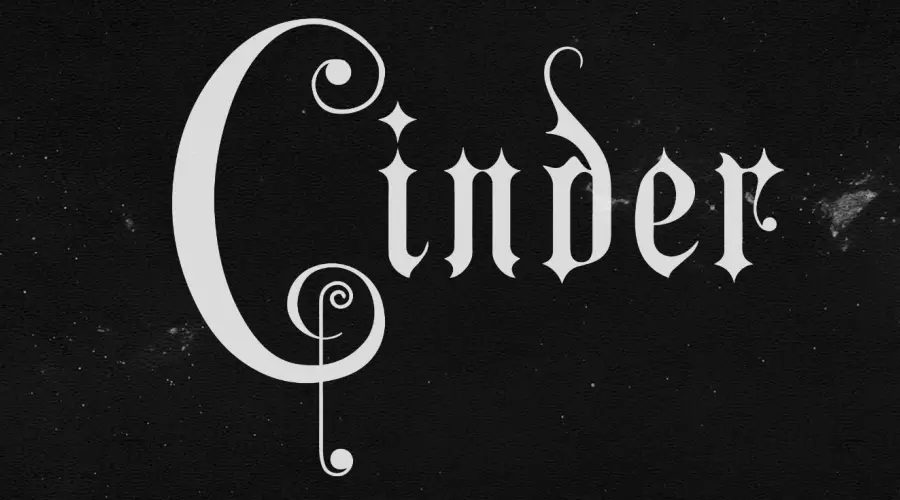
The Cinder Font is a distinctive typeface prominently featured on the cover of Cinder, the first book in Marissa Meyer’s Lunar Chronicles series. This science fiction novel reimagines the classic Cinderella tale in a futuristic world where humans and cyborgs coexist. The font used for the title on the book cover is Aeronaut, a neogothic typeface designed by Georg Herold-Wildfellner in 2009. Its sharp, futuristic, and slightly industrial design perfectly complements the novel’s theme.
Aeronaut by Georg Herold-Wildfellner – The exact font used on the Cinder book cover.